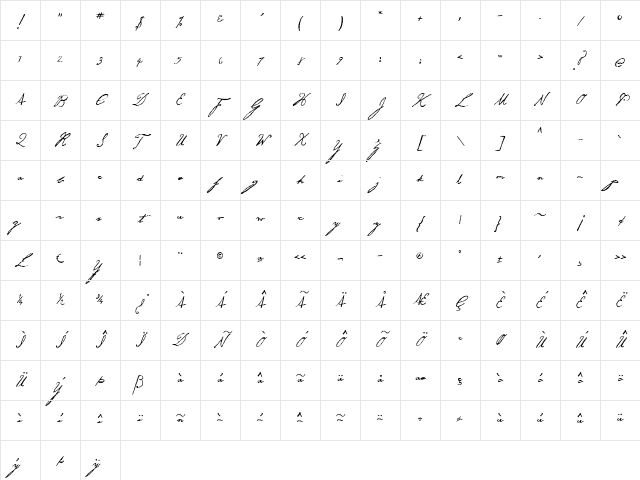
Complete George Gibson Regular glyph index. Displaying only characters natively supported by George Gibson Regular font.
George Gibson is a composed and adaptable typeface that performs quietly and consistently across a wide range of design contexts.